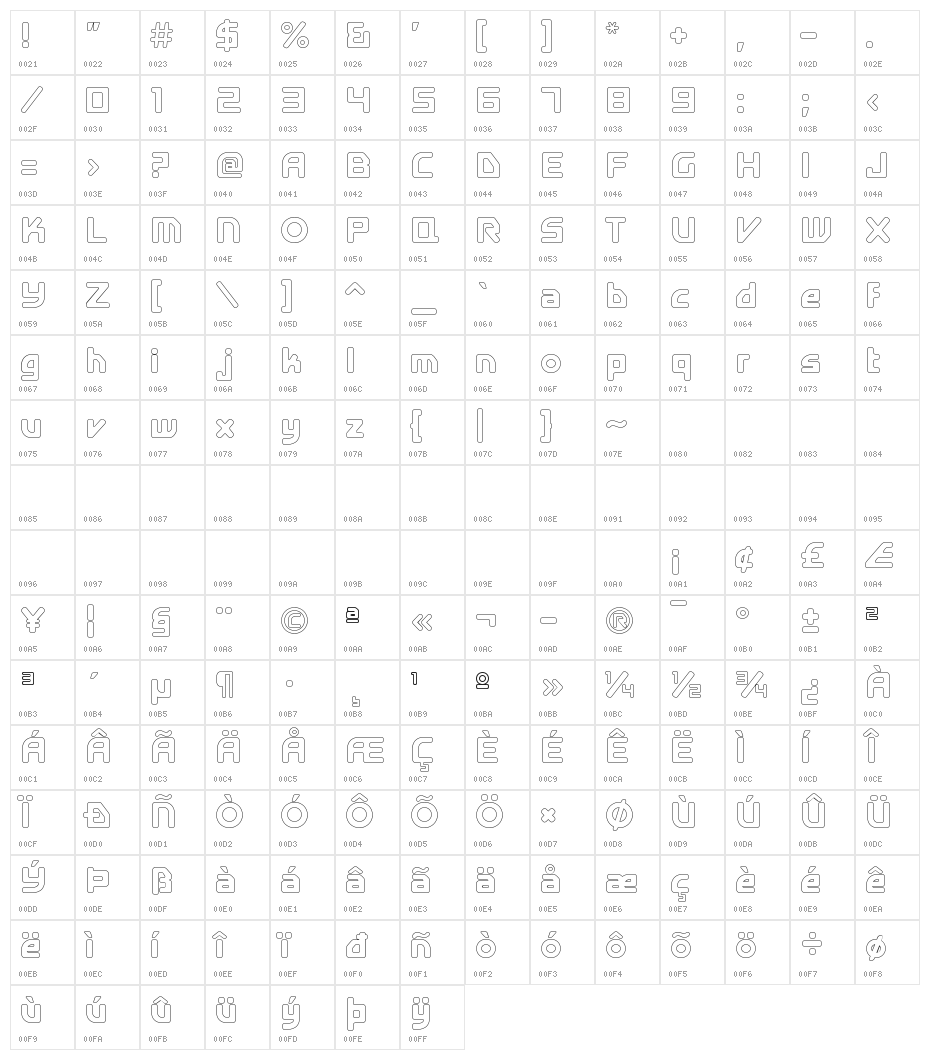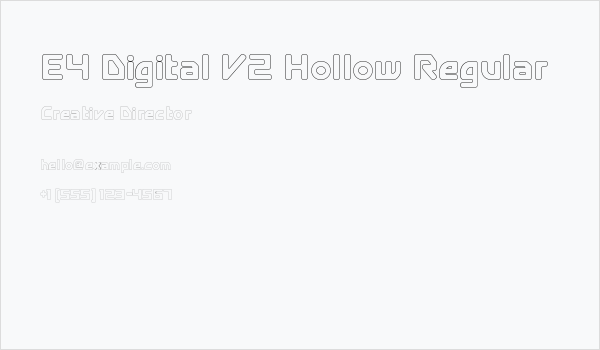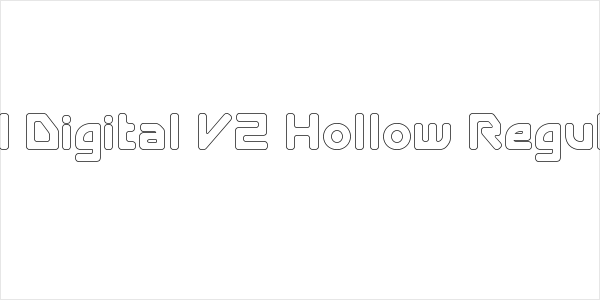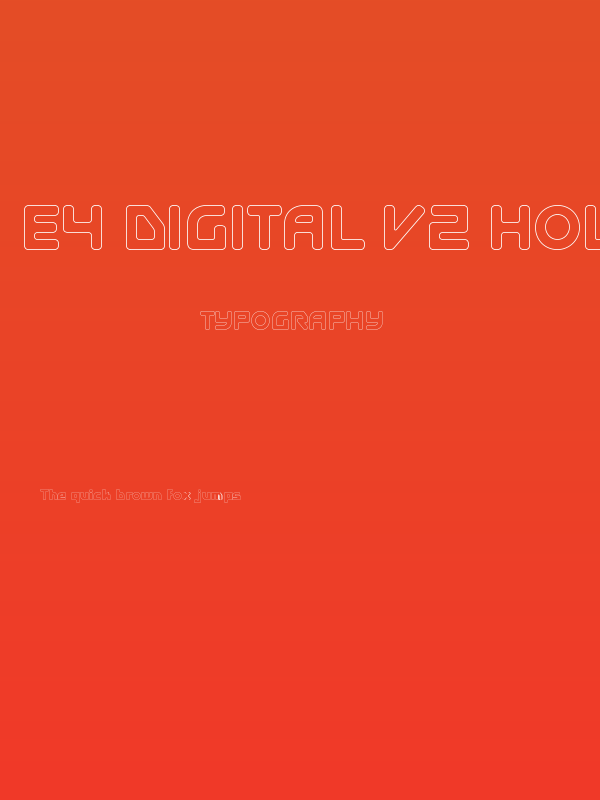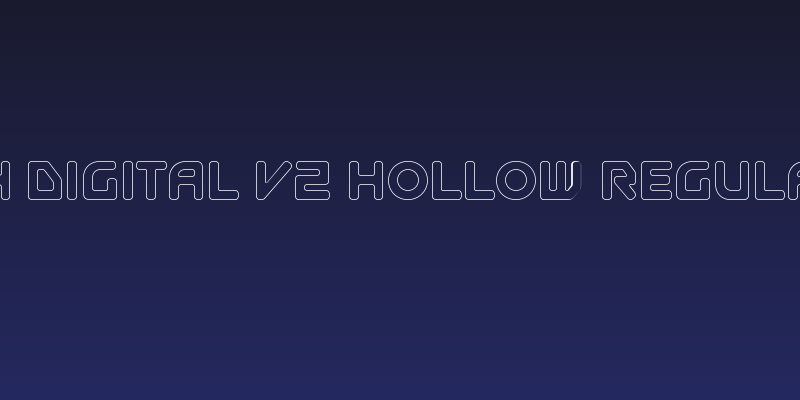
E4 Digital V2 Hollow Regular Font
E4 Digital V2 Hollow Regular Description
This font features a hollow, geometric design with rounded edges, giving it a futuristic and digital appearance. The characters are constructed with uniform line thickness, creating a clean and modern look. The uppercase and lowercase letters maintain a consistent style, with a focus on simplicity and readability. The numerals and special characters follow the same design principles, ensuring a cohesive visual identity across all glyphs. This font's hollow nature allows for creative use of background colors and textures to enhance its visual impact.
| Use Case | Logos, Headlines, Digital interfaces |
| Proposed Projects | Ideal for digital interfaces, tech branding, futuristic posters, and creative design projects where a modern and clean aesthetic is desired. |